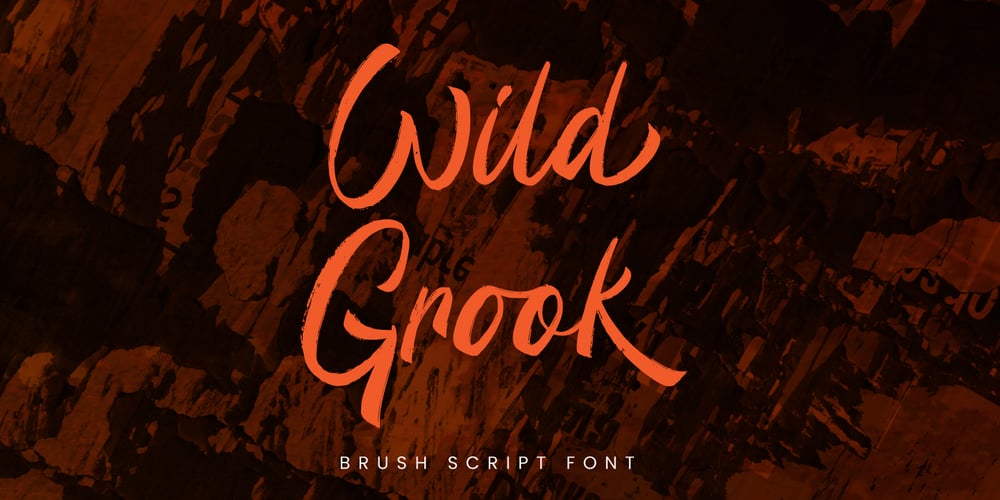
Wild Grook
Wild Grook font
Wild Grook Font Family was designed by Fadli Ramadhan Iskandar and published by Attype Studio. Wild Grook contains 1 styles and family package options. Introducing Wild Grook – Inspired by urban typeface with texture style, Wild Grook has strong character perfect for urban street design.Wild Grook is perfect for branding, logo, invitation, stationery, product packaging, merchandise, monogram, blog design, game titles, cute style design, Book/Cover Title and more.Features :- Ending swash- Ligatures- Multilingual Support Hope you enjoy with our font!Attype Studio